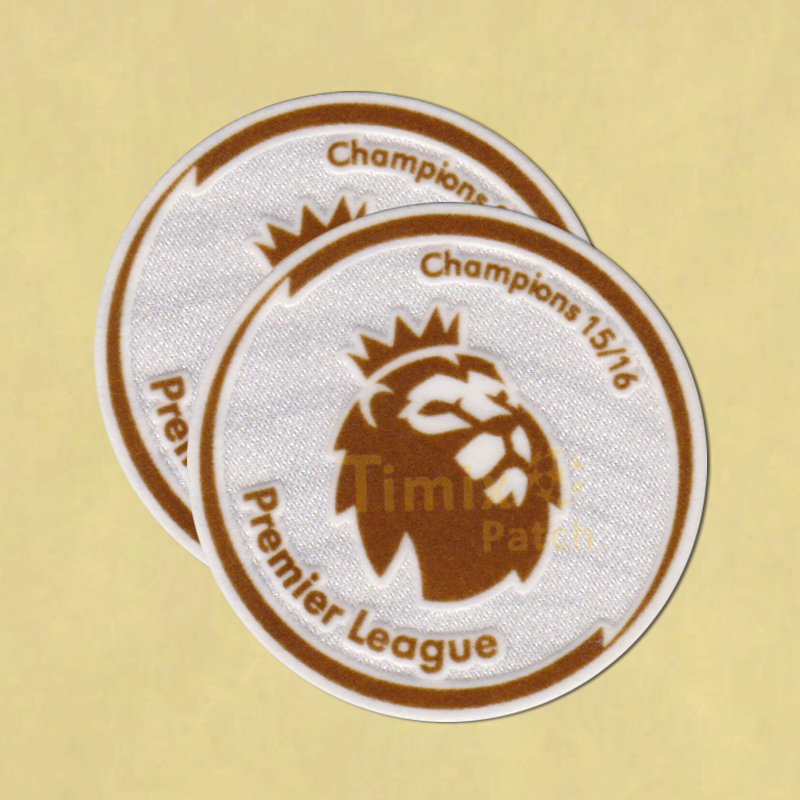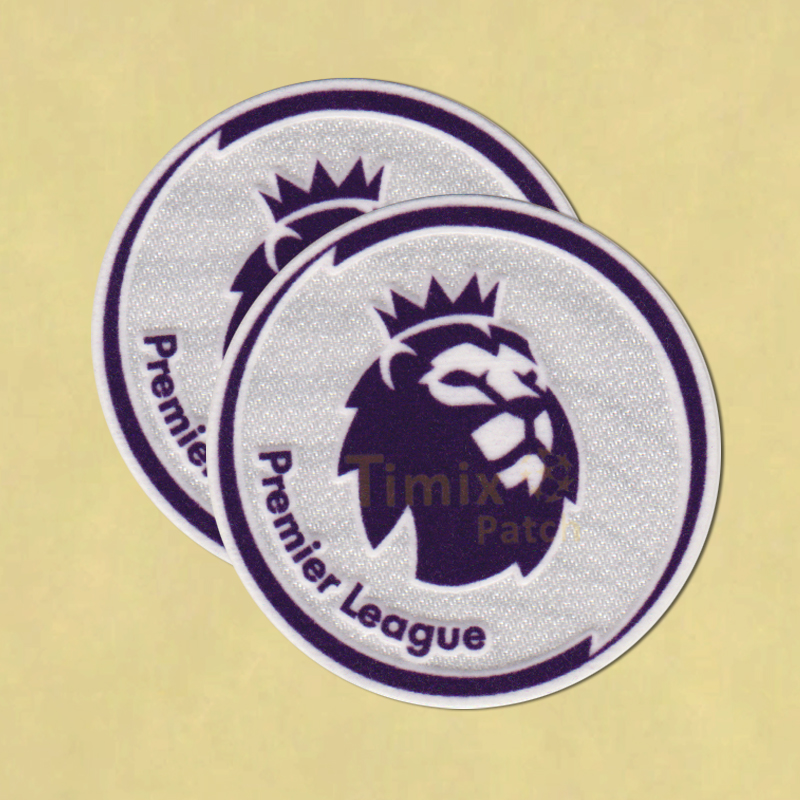
NEW PREMIER LEAGUE 2017-2018 FONTBy Timix / May 17, 2017 The English Premier League enter the “new era”. The first tier of English football will use new font for name player & number. This is the new English Premier League that will be used from 2017/2018 season. This font include the new logo of EPL. .